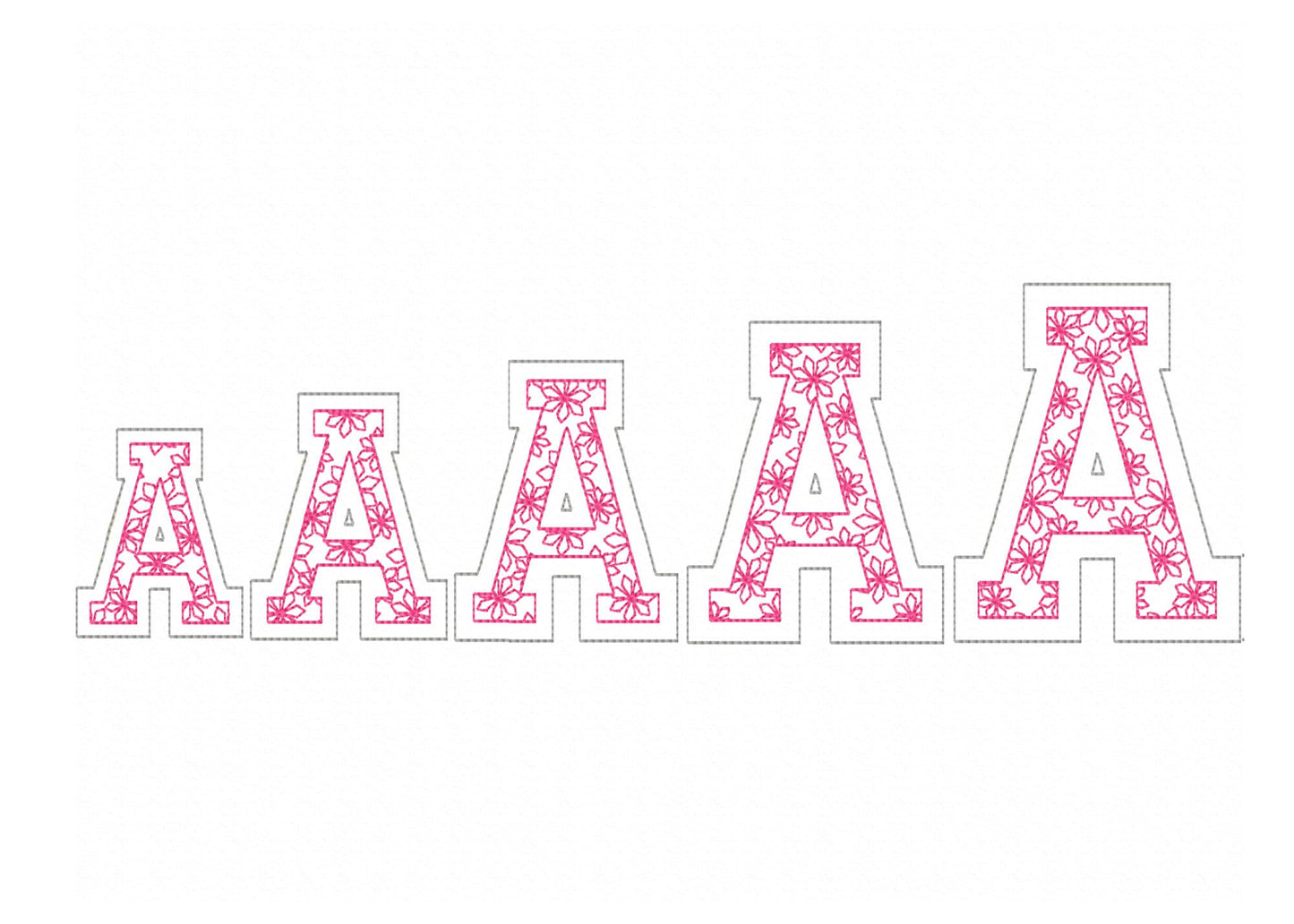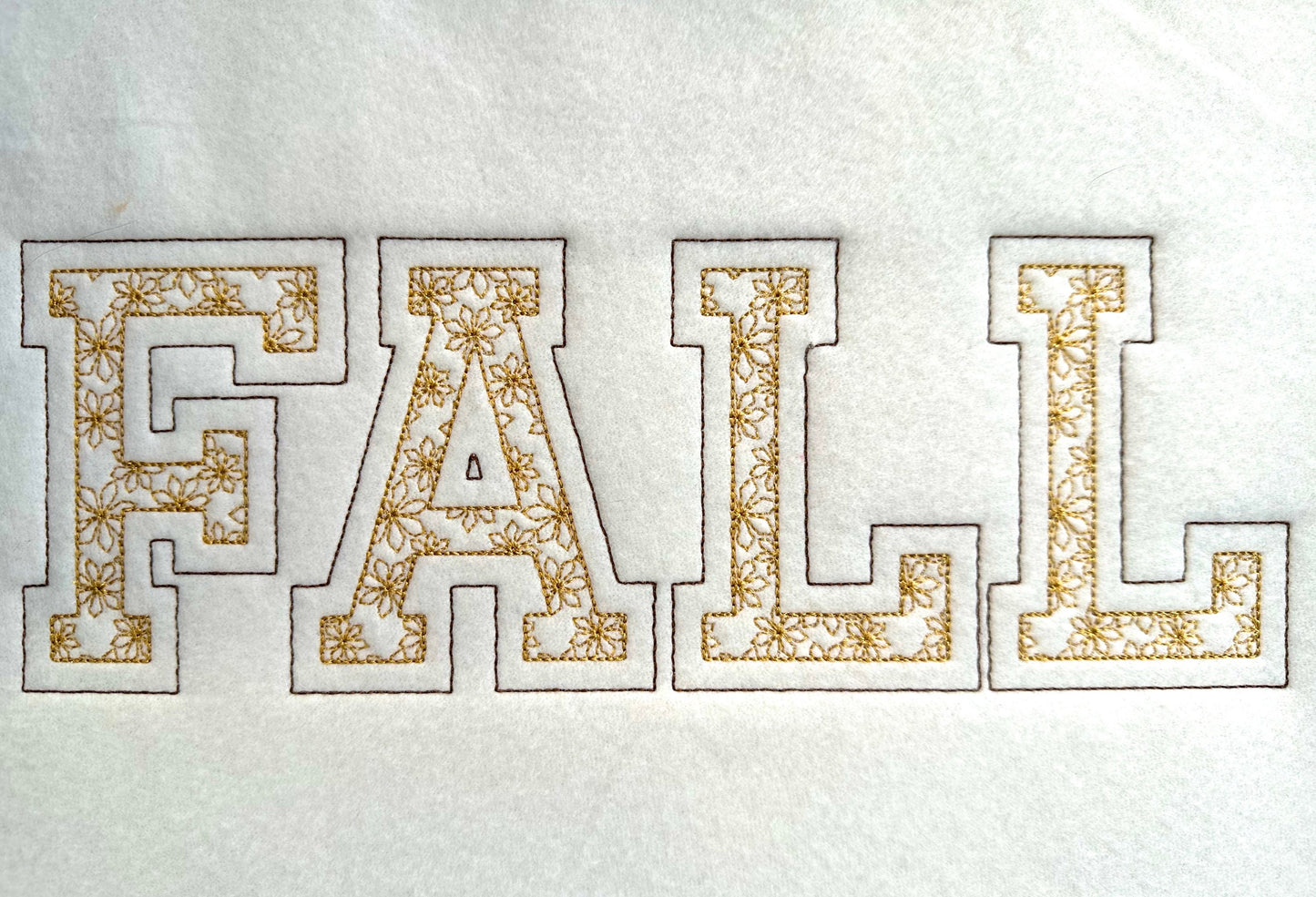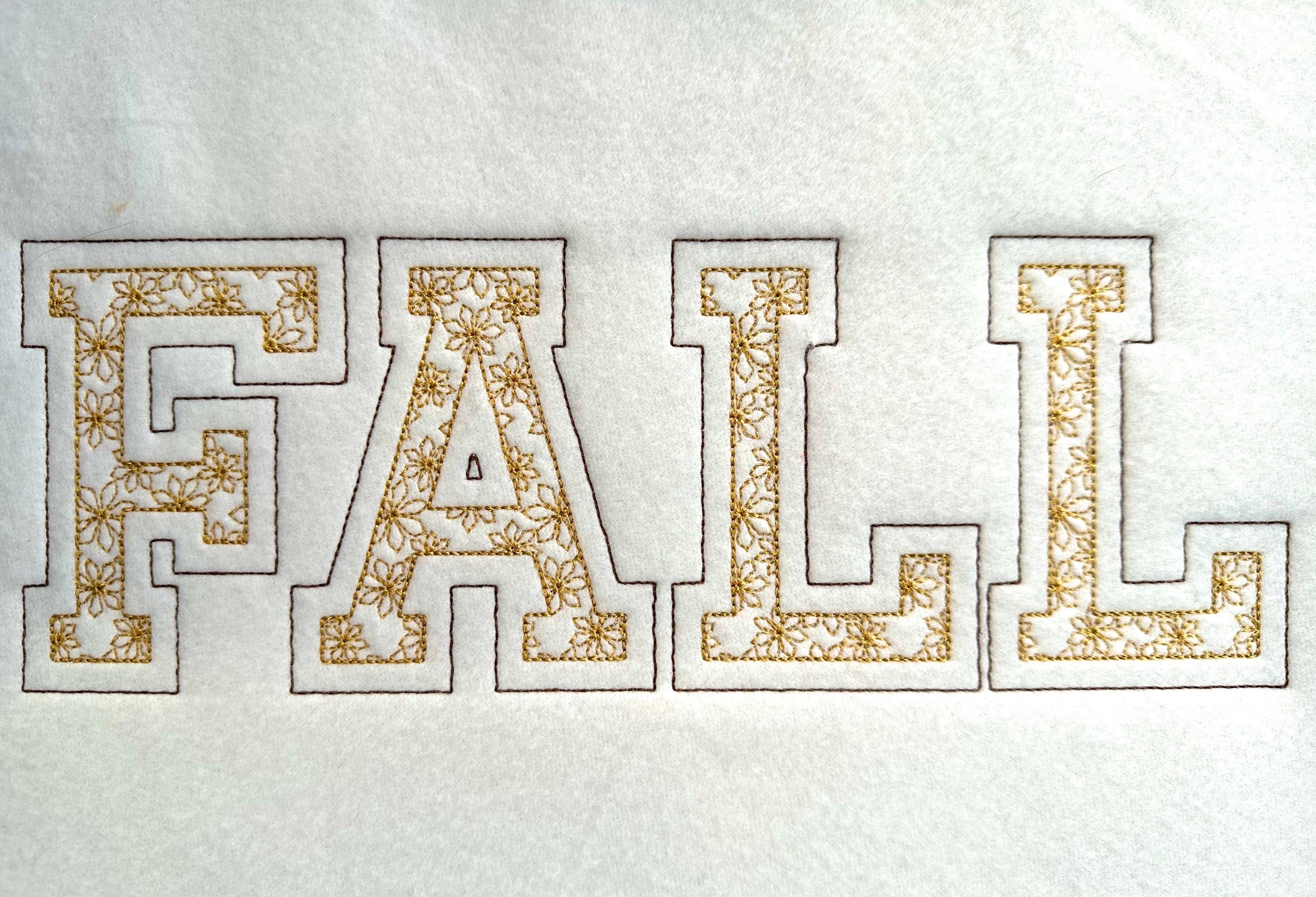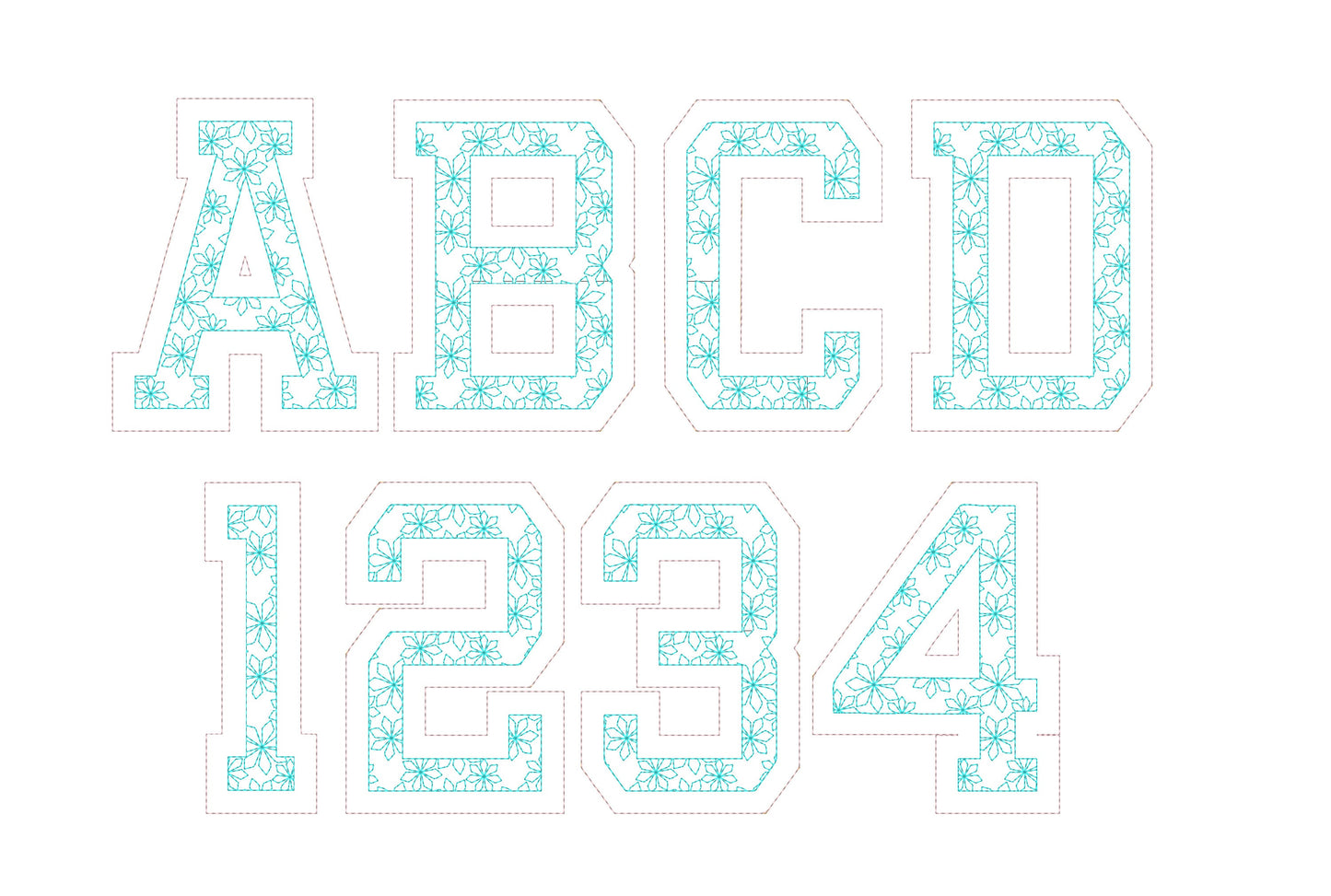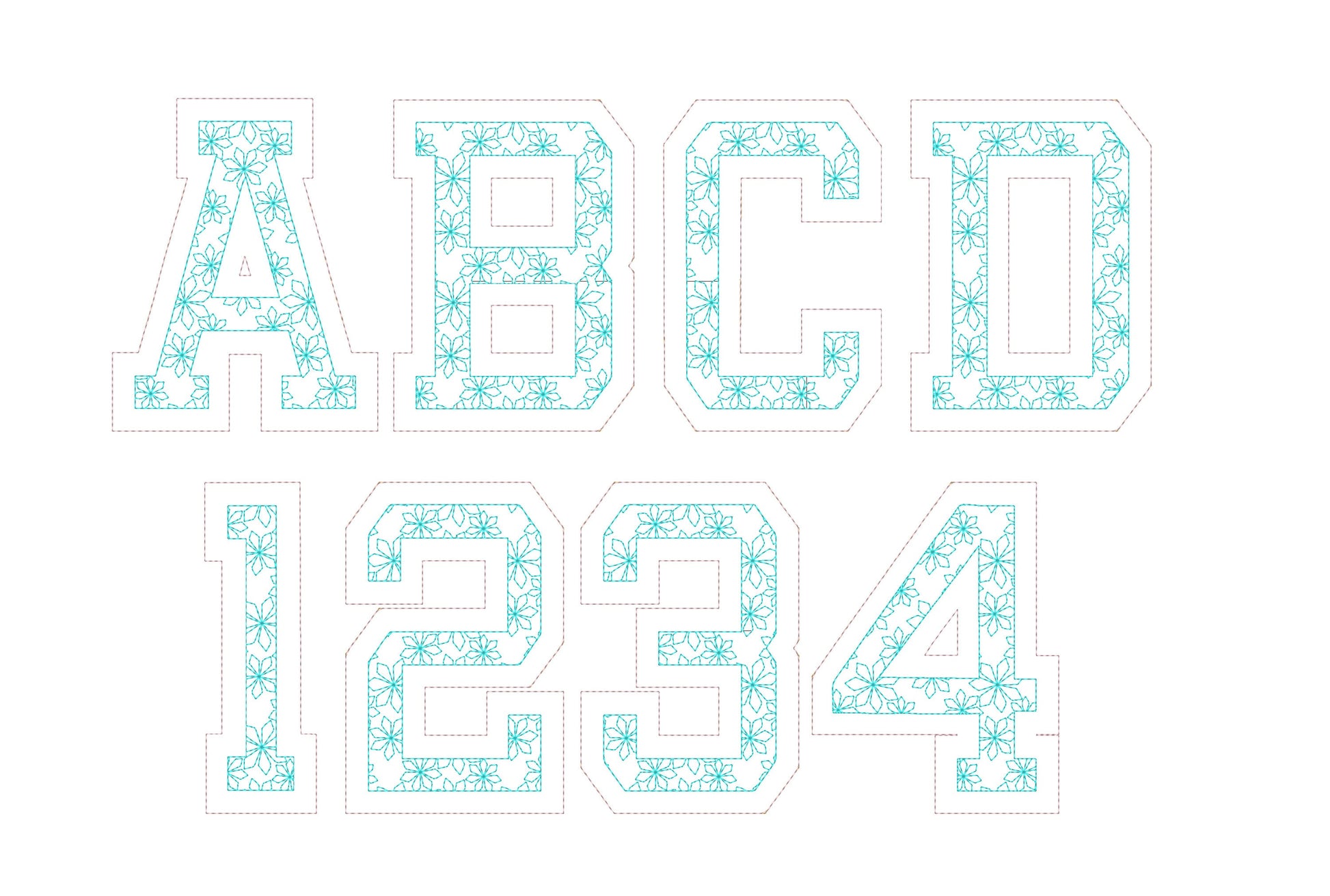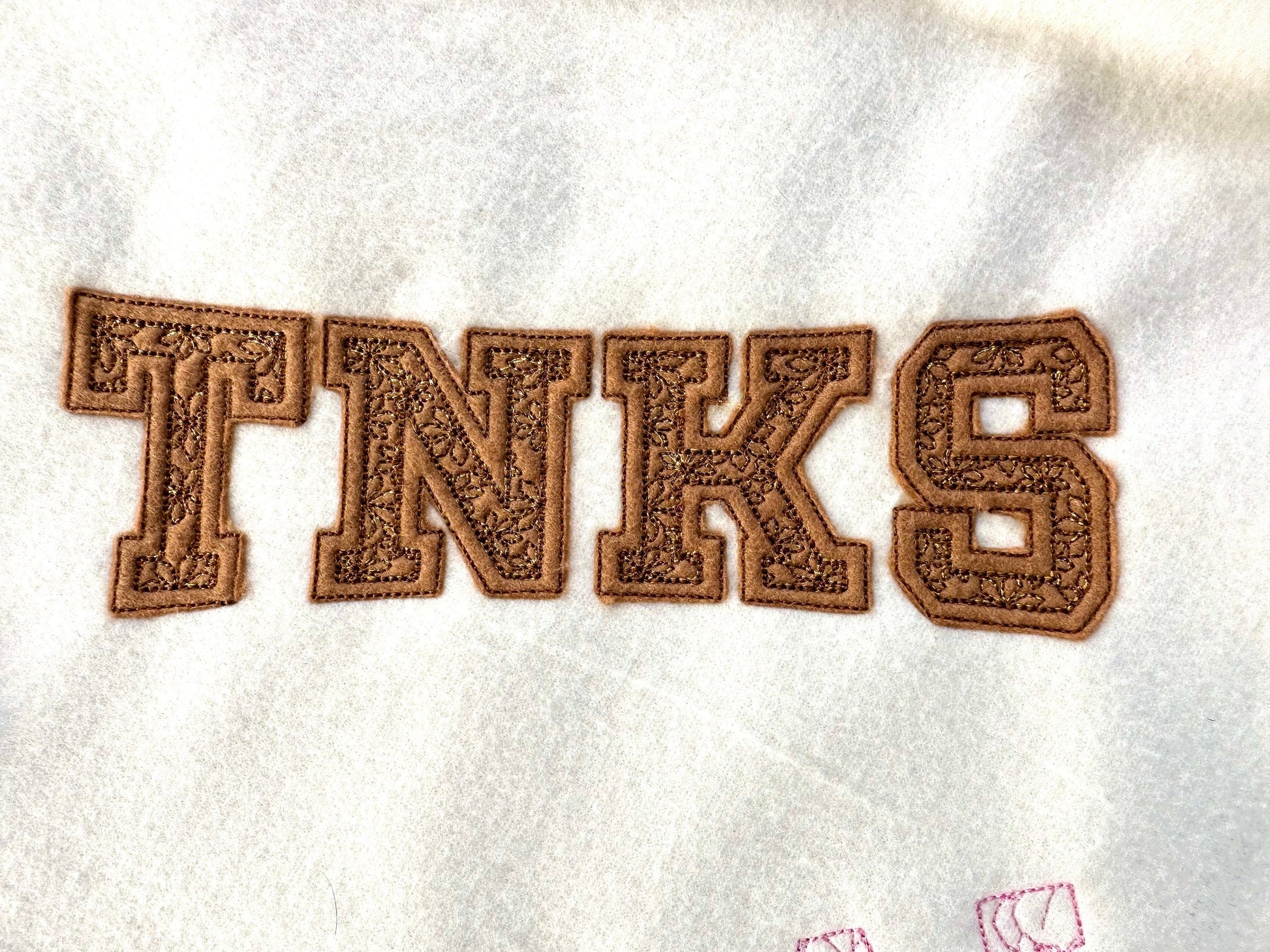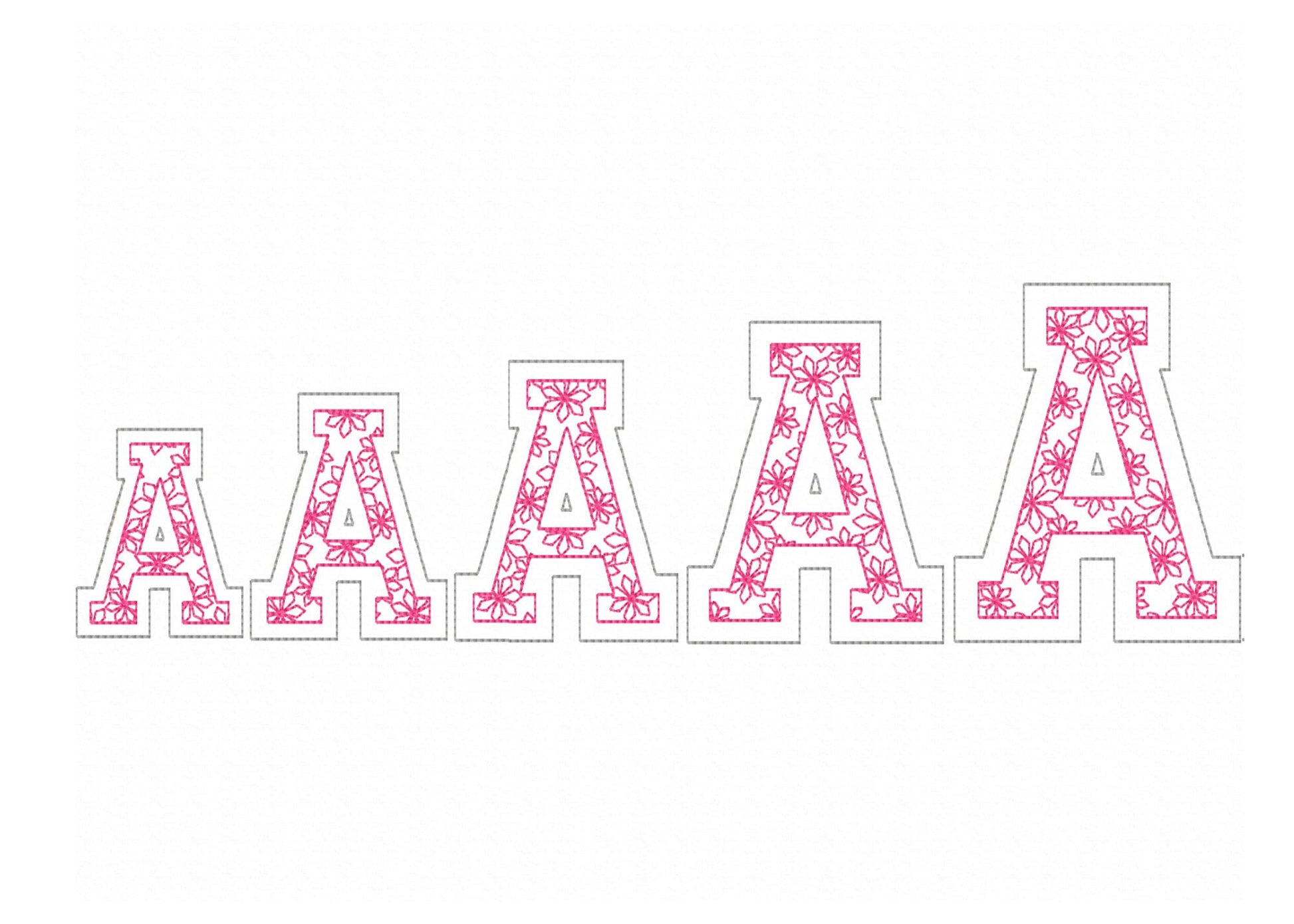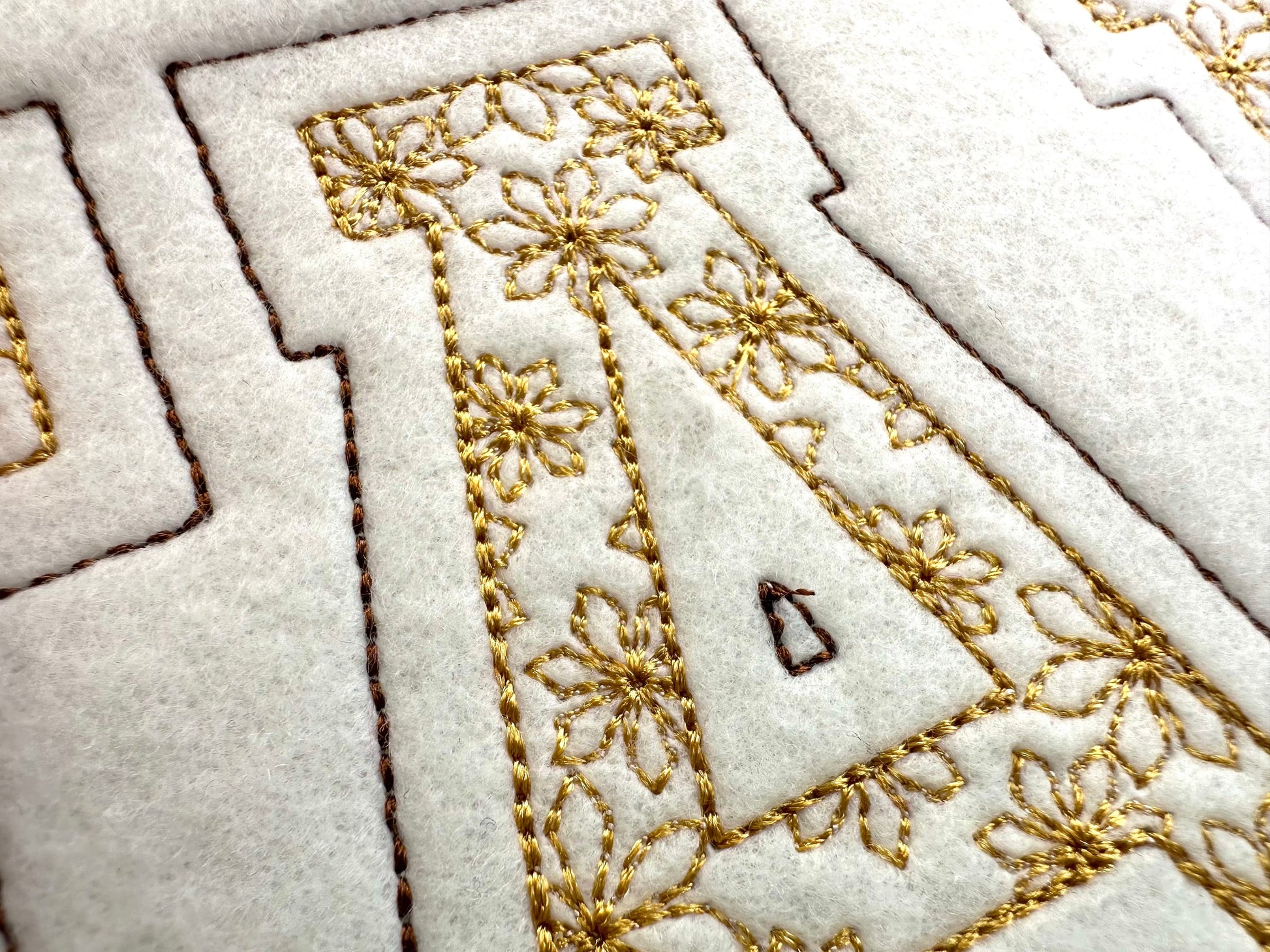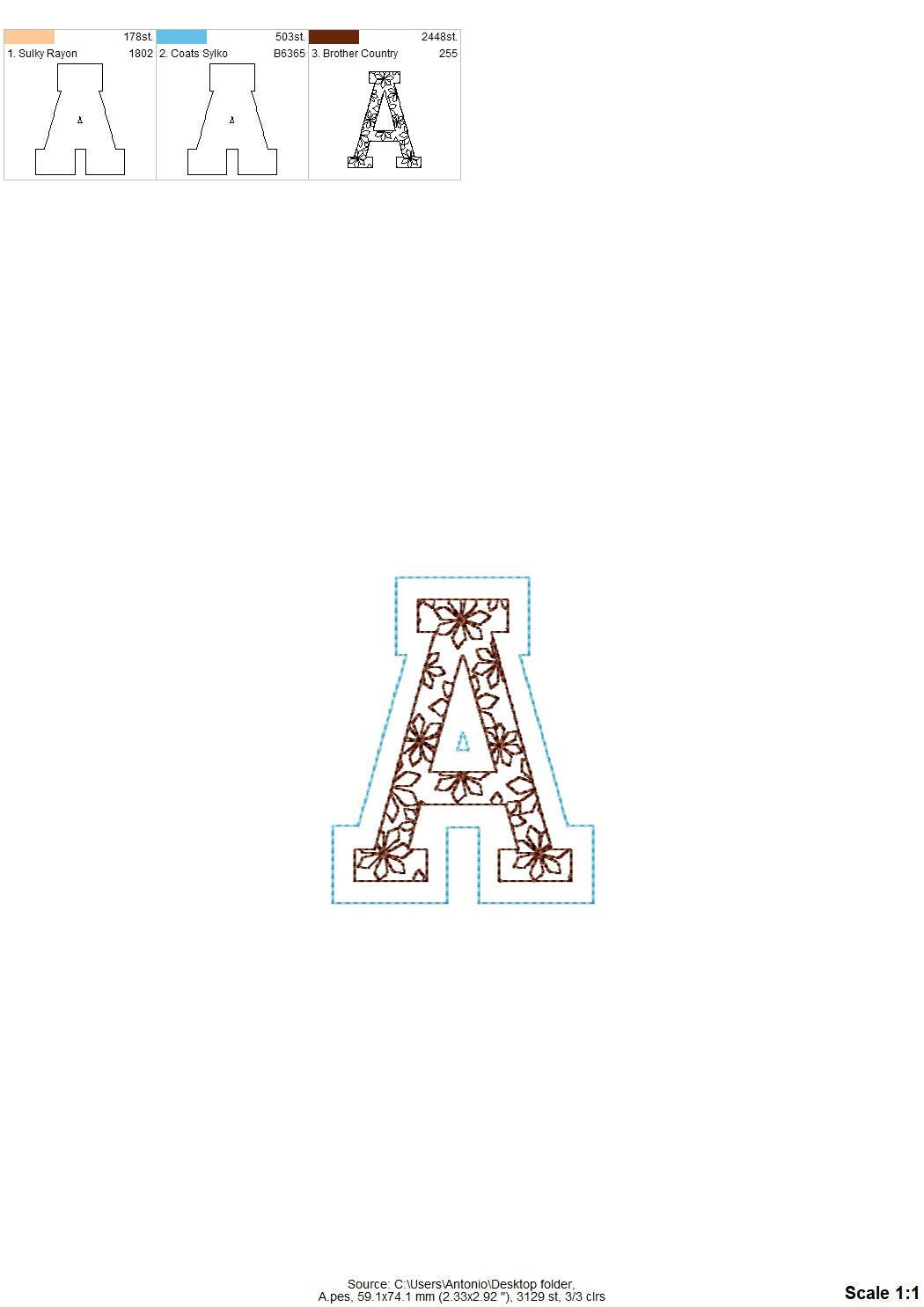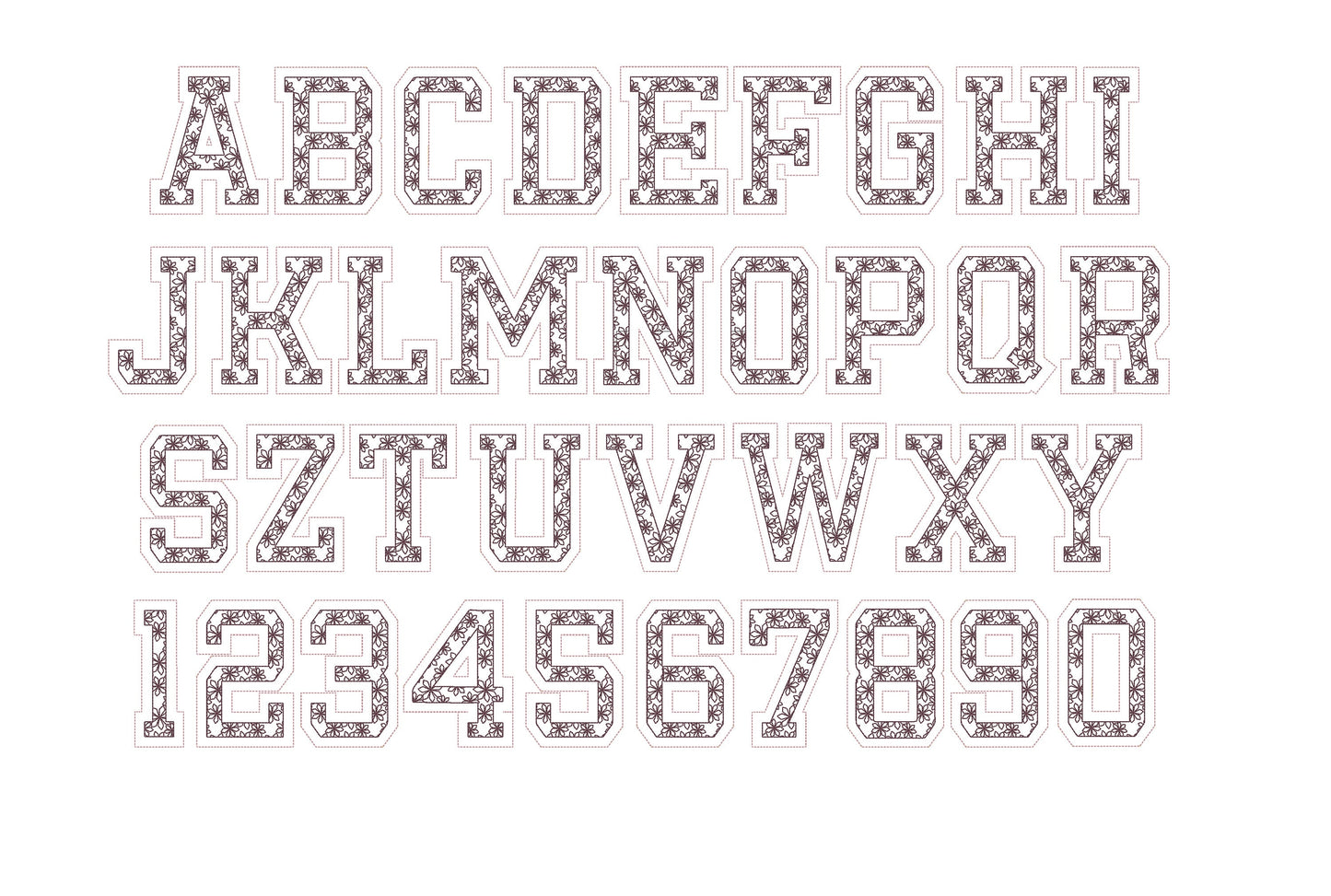
Or click to open the linkA varsity font with a light floral fill and two outlines, for sporty girls' names and numbers on shirts and bags.
Use it as it is, or as an open-edge applique. Uppercase A to Z and numbers in six sizes: 1.5, 2.2, 2.5, 3, 3.3 and 3.7 inches.